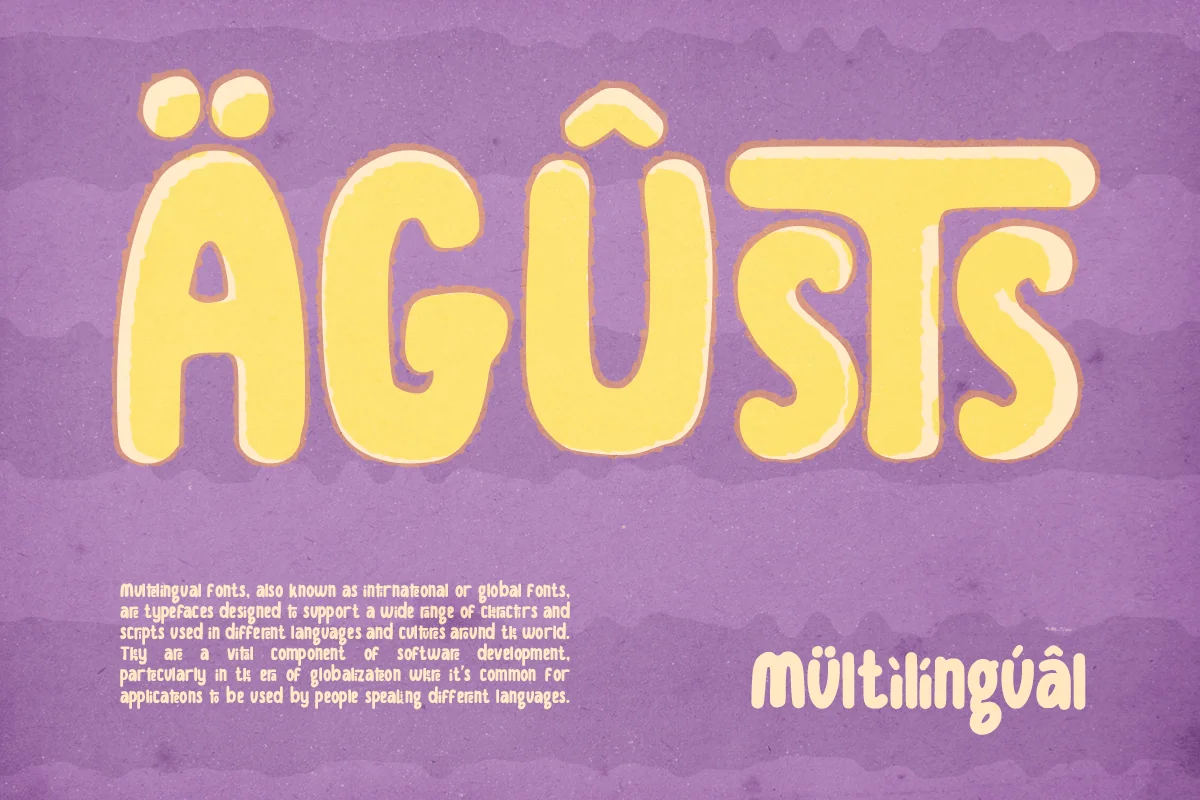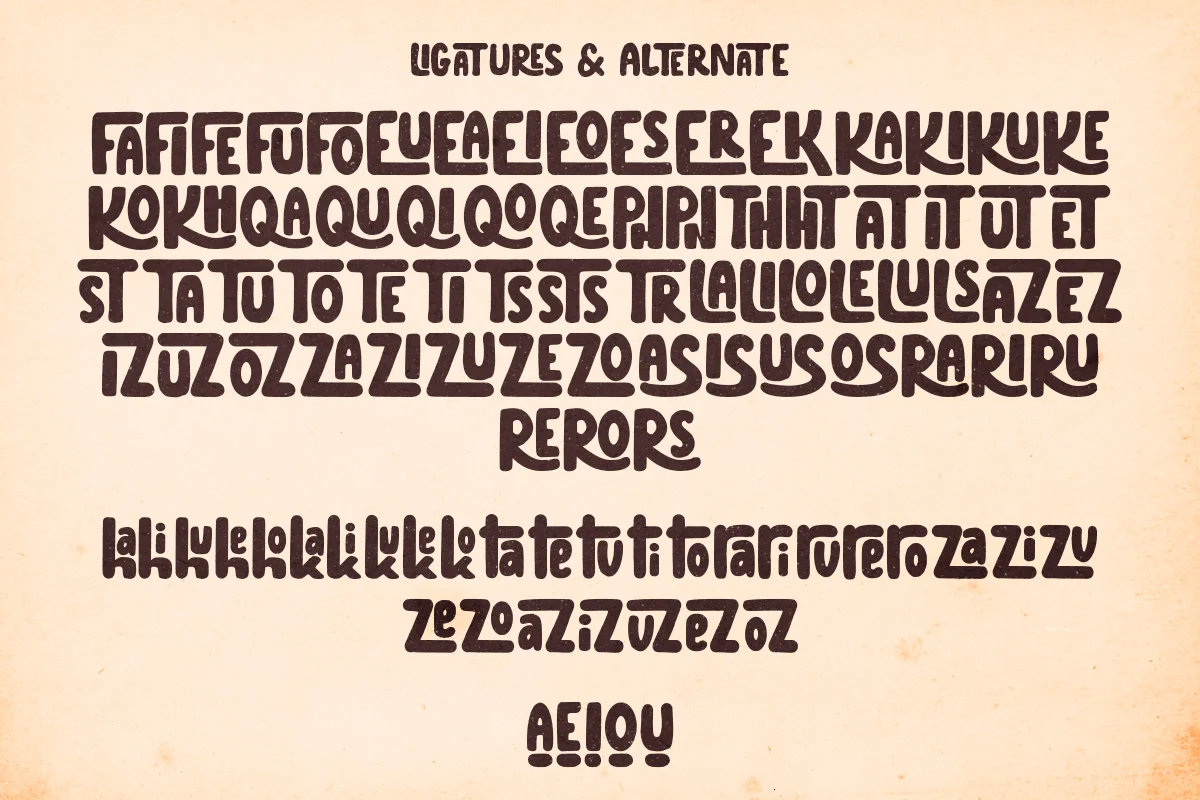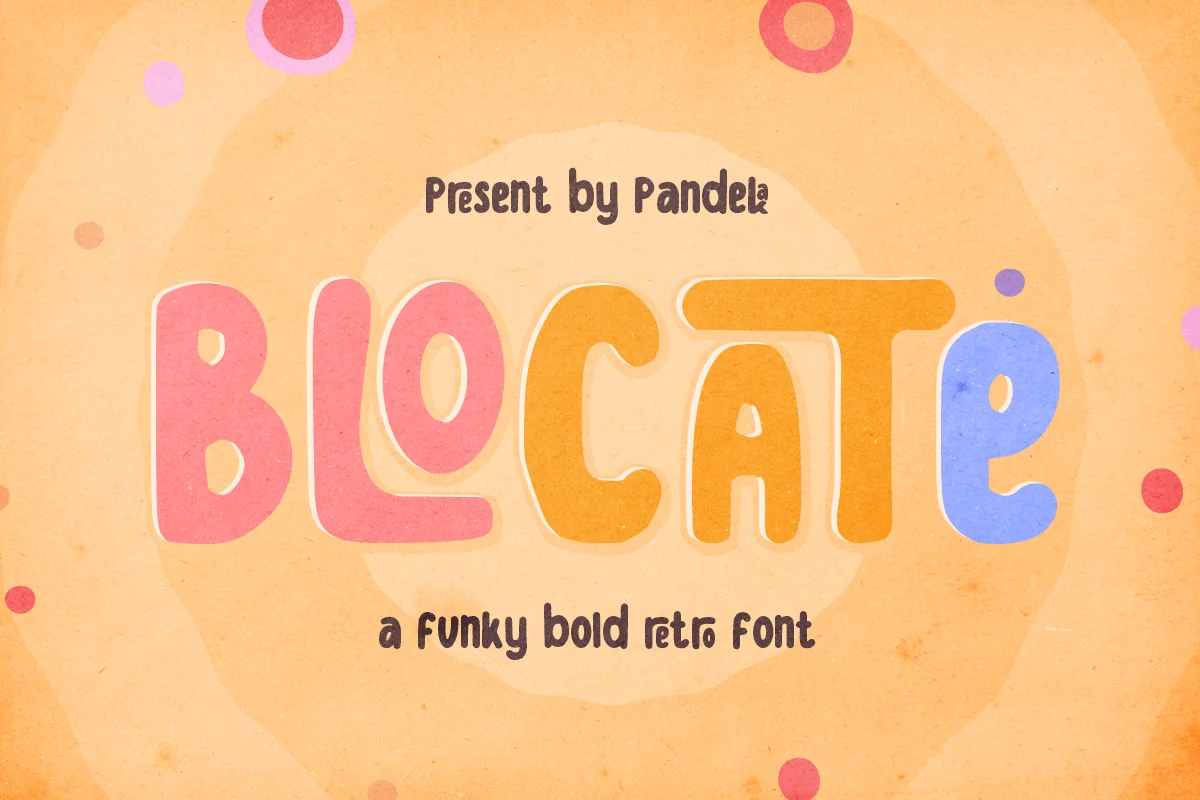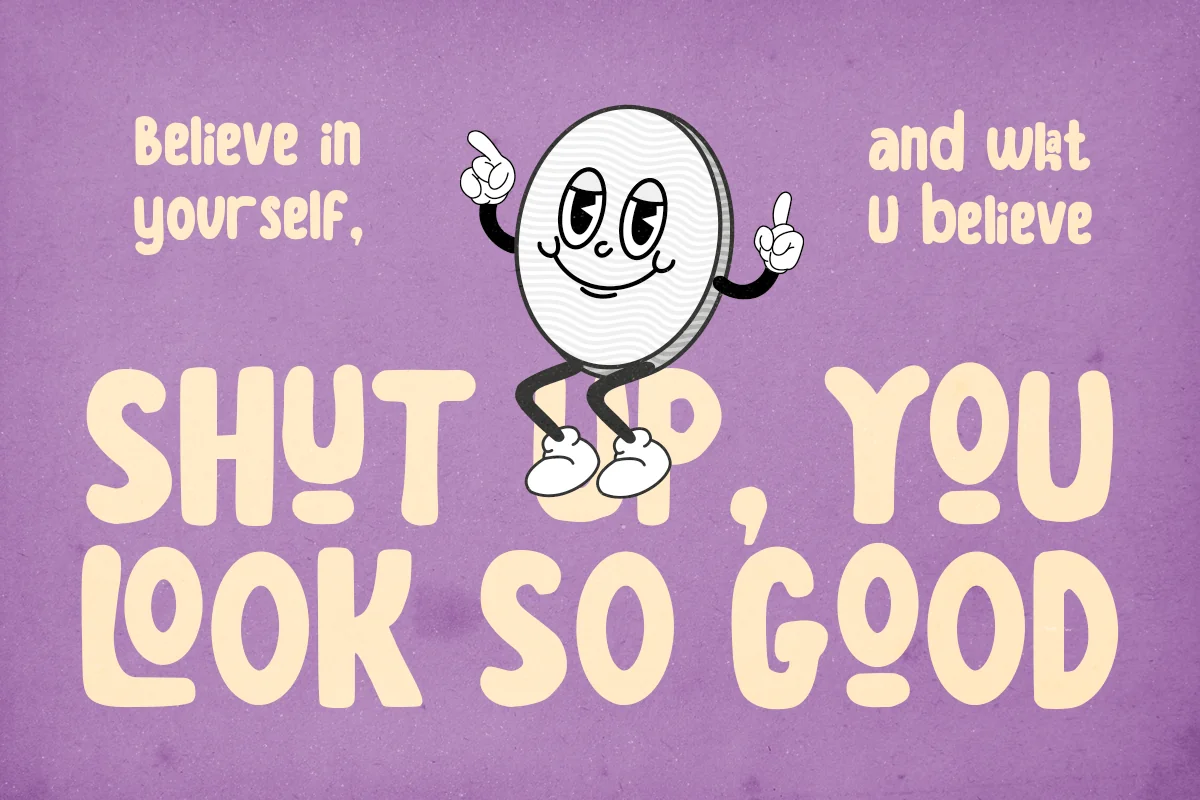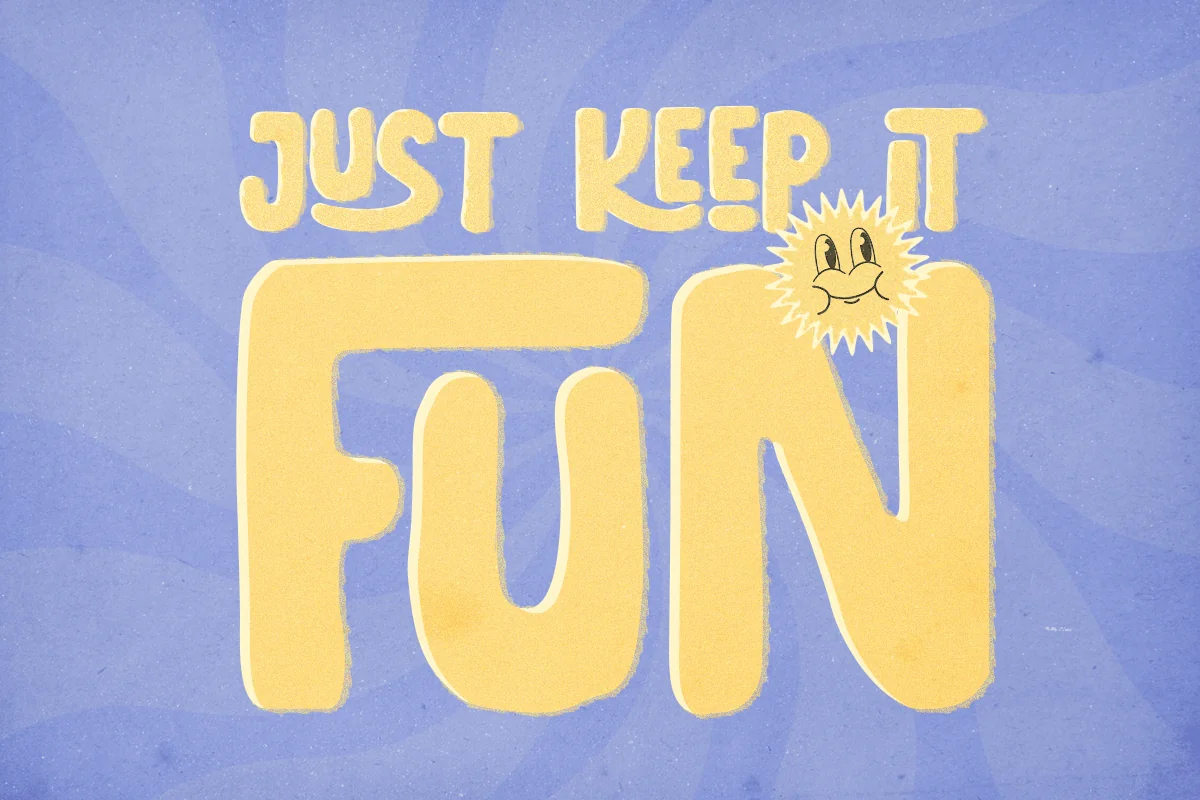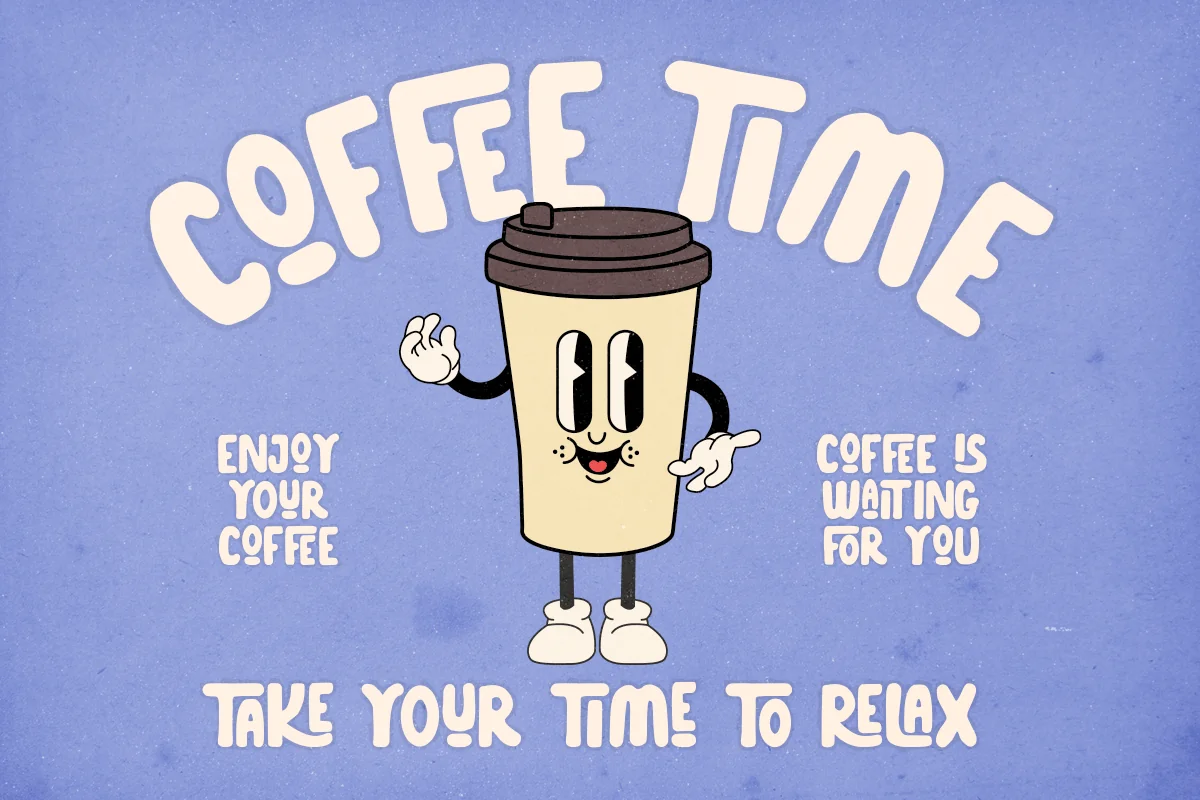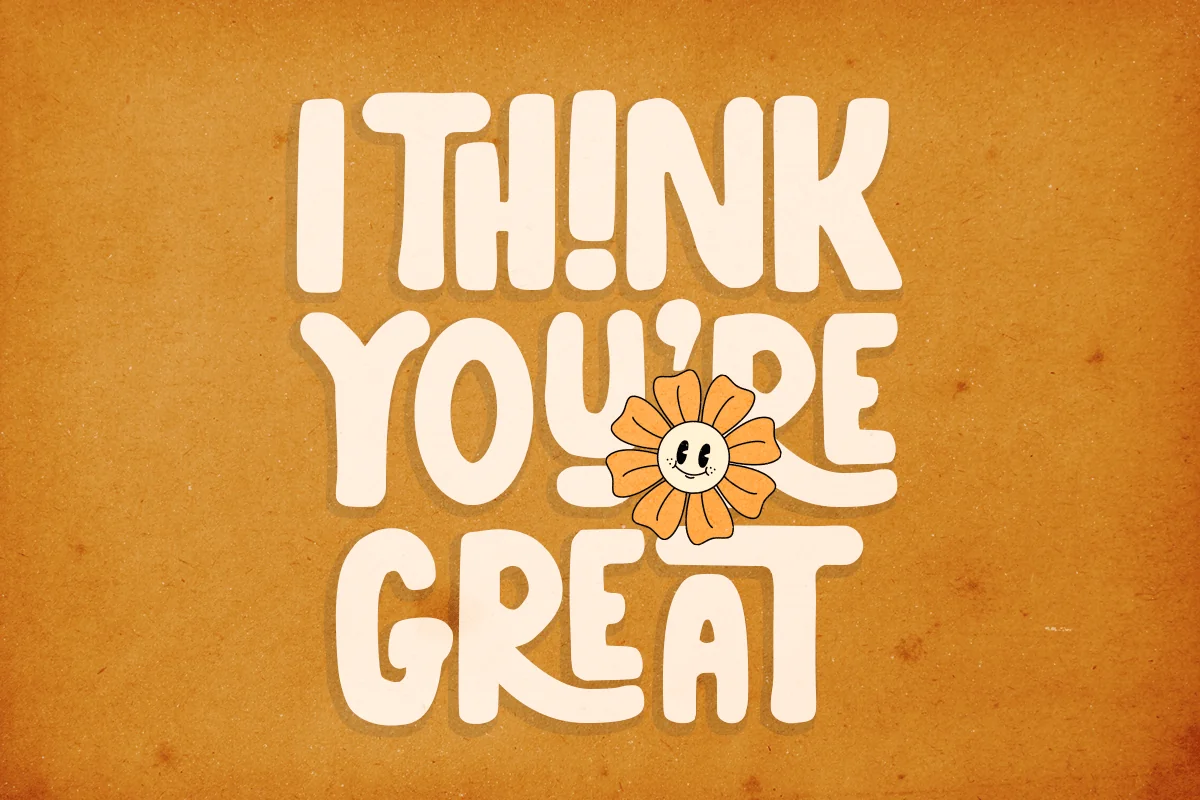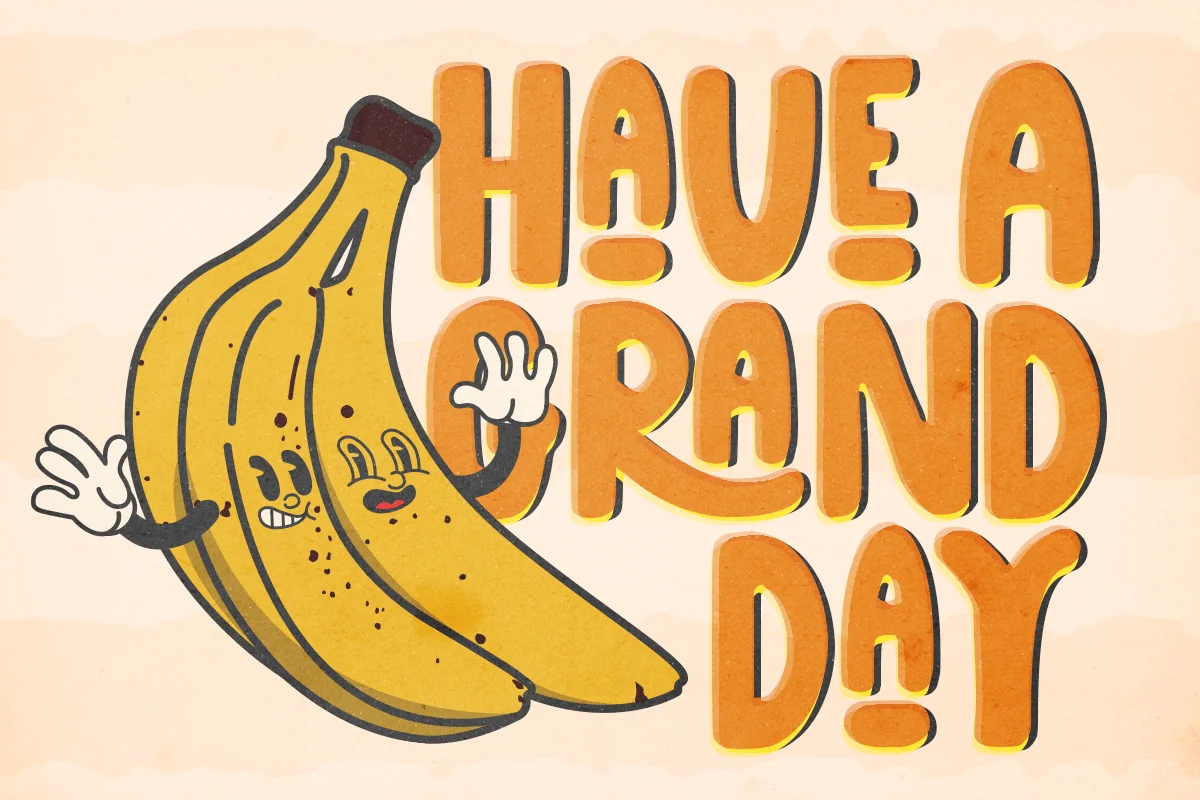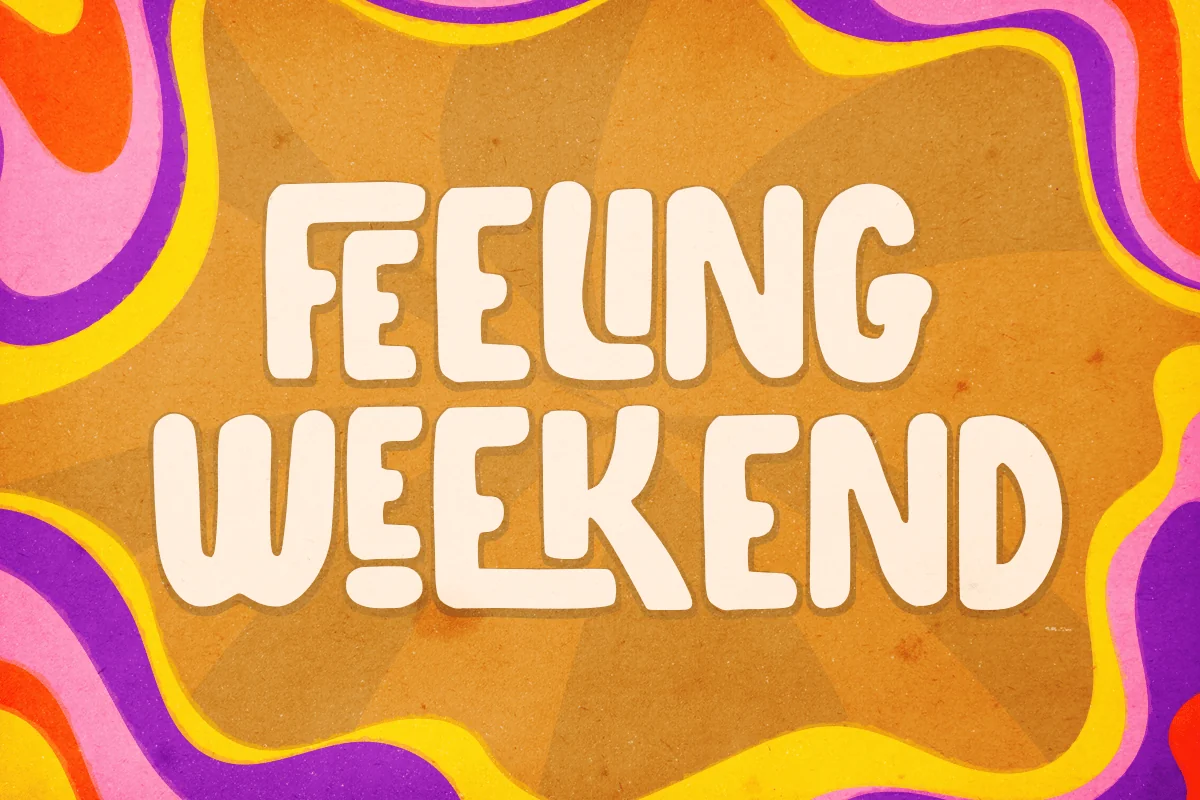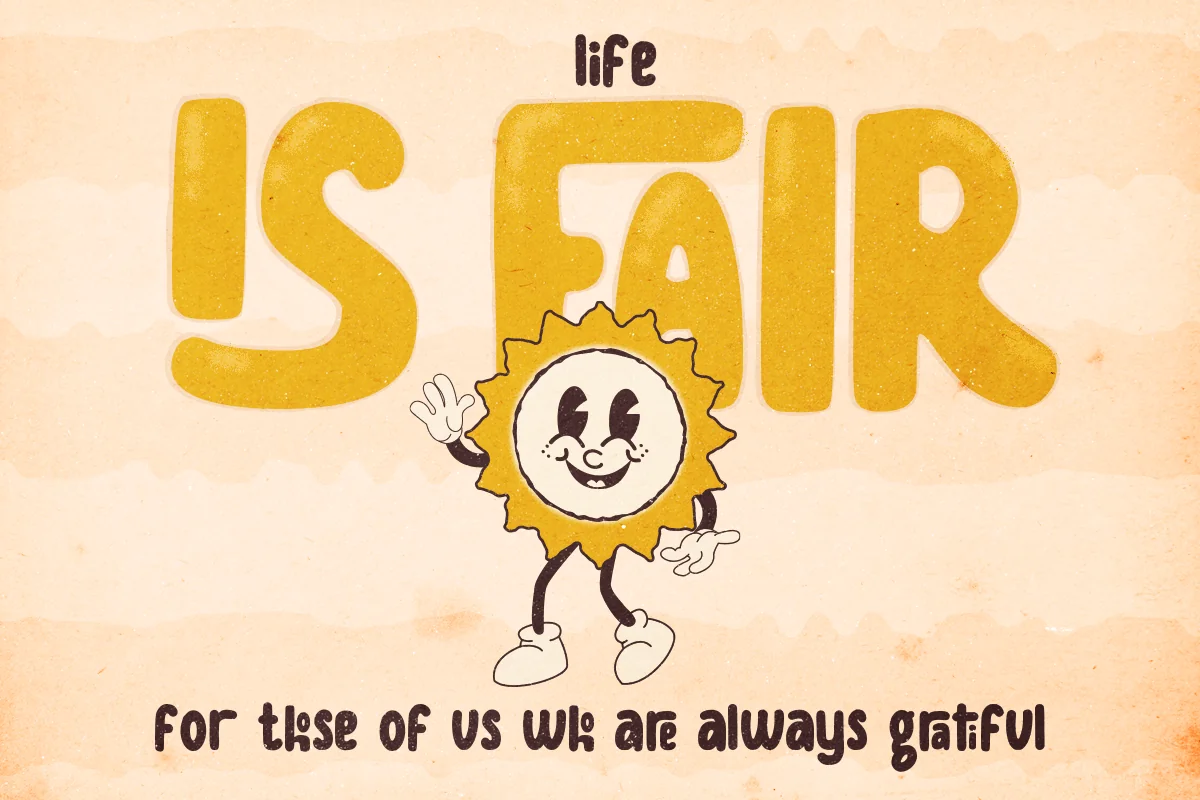
Blocate – Retro Groovy Font
Presenting our new playful retro font, Blocate!
Blocate is a bold retro serif fonts that feels clean and fun an incredible modern retro aesthetic. This font features a ligature feature on capital letters which allows the font to look unique with a wavy style. Use this Blocate font to add that special modern retro touch to any design idea you can think of!
- Many Unique Ligatures
Language Support: Danish, English, Estonian, Filipino, Finnish, French, Friulian, Galician, German, Gusii, Indonesian, Irish, Italian, Luxembourgish, Norwegian Bokmål, Norwegian Nynorsk, Nyankole, Oromo, Portuguese, Romansh, Rombo, Spanish, Swedish, Swiss-German, Uzbek (Latin)